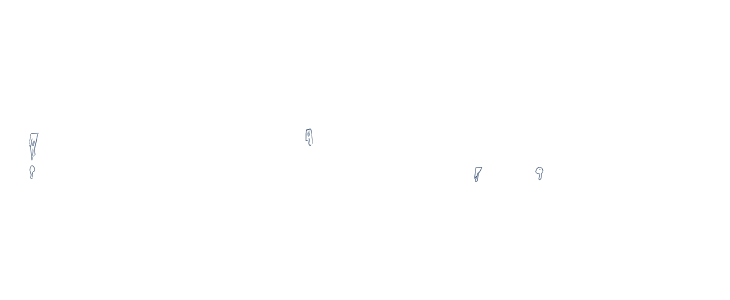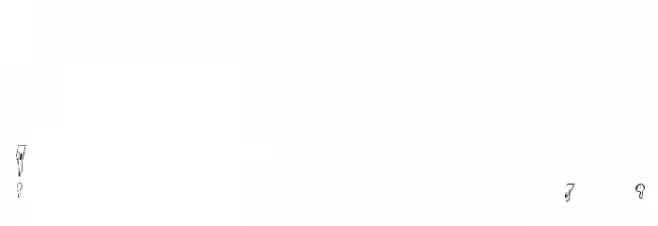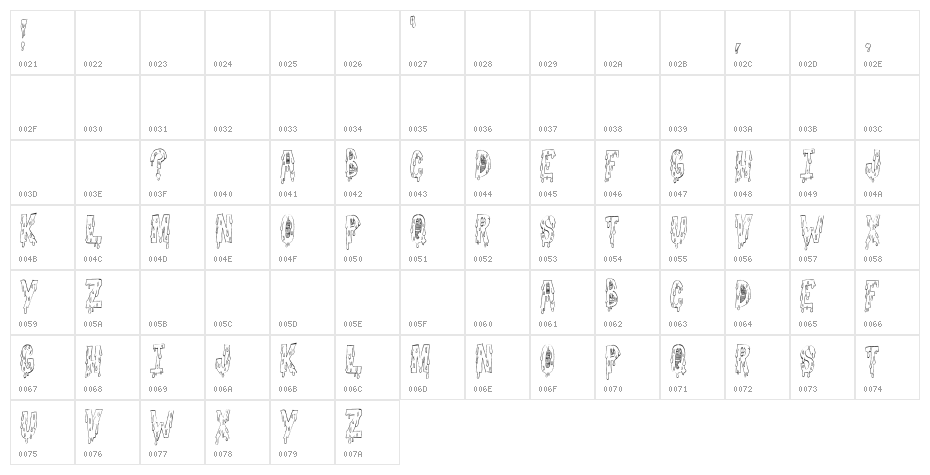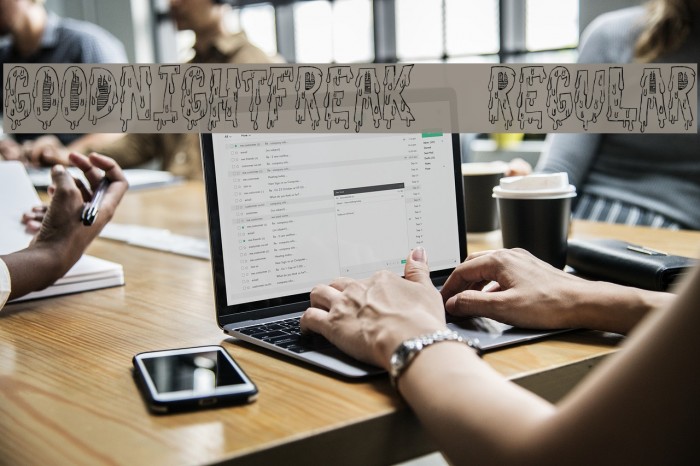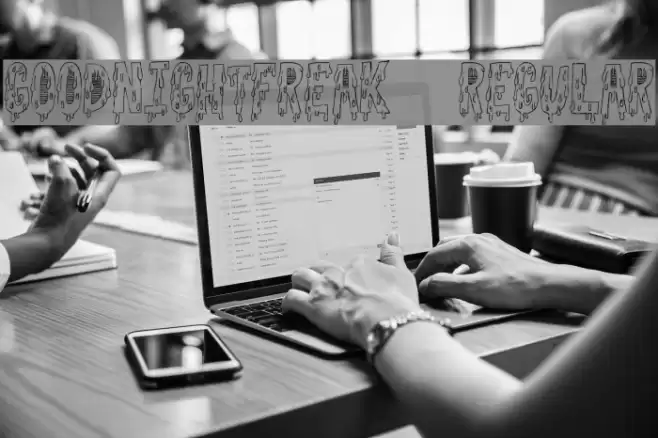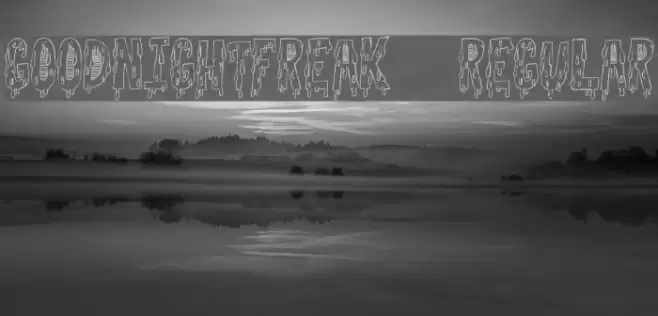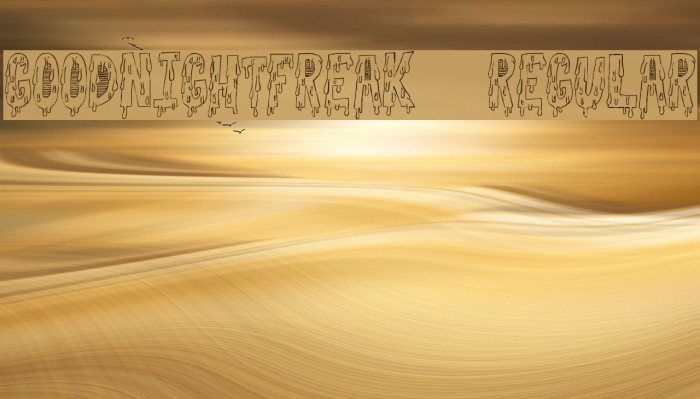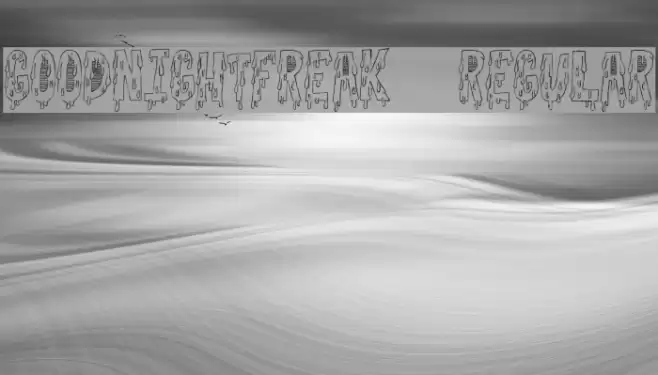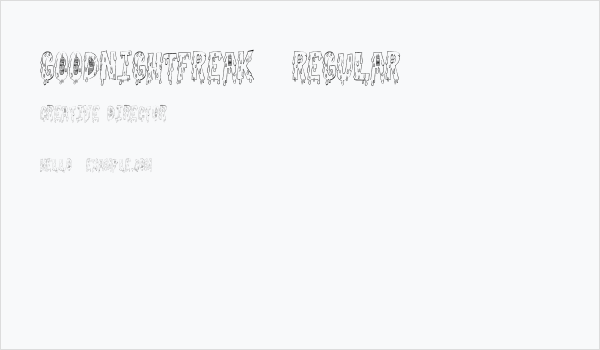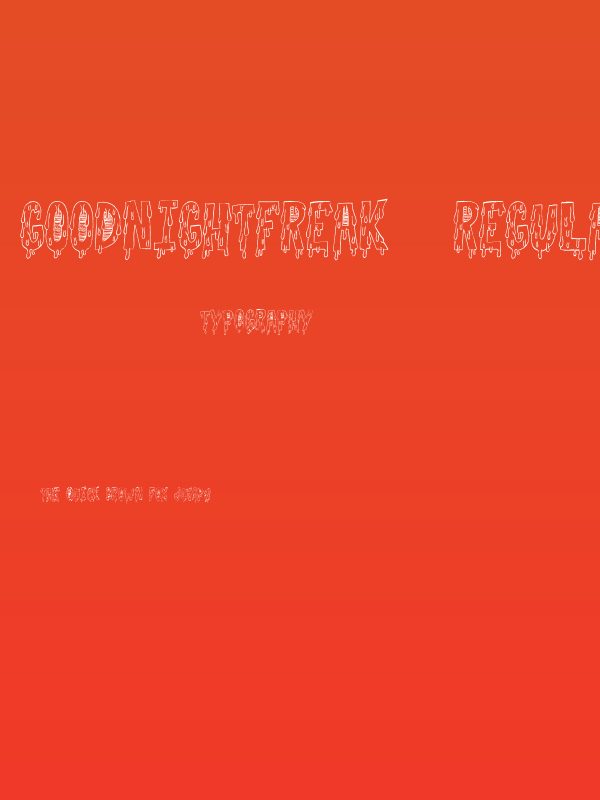
GoodnightFreak-Regular Font
GoodnightFreak-Regular Description
This font features a unique and playful design with a dripping effect that gives it a melting appearance. Each character is crafted with irregular edges and a hand-drawn style, adding a whimsical and slightly eerie vibe. The uppercase and lowercase letters maintain a consistent theme, with the uppercase being more pronounced in their dripping details. The numbers and special characters follow the same design principles, ensuring a cohesive look across all elements. This font is perfect for projects that require a fun, spooky, or unconventional aesthetic.
| Use Case | Headlines, Posters, Creative Designs |
| Proposed Projects | Ideal for Halloween-themed designs, children's book covers, party invitations, or any creative project needing a quirky and spooky touch. |